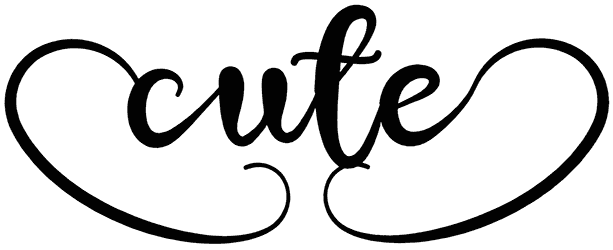
Wedding Nightmares Font
Wedding Nightmares font is one of the best in calligraphy style. This wedding font can be used for many designs that need elegance and boost your designs. Wedding Nightmares does not have any numbers.
If you are planning a wedding, get started with this feminine font. It is the best choice for wedding card design. In addition, it is suitable for personal use, such as signatures for your documents.
Designed by: Billy Argel Fonts